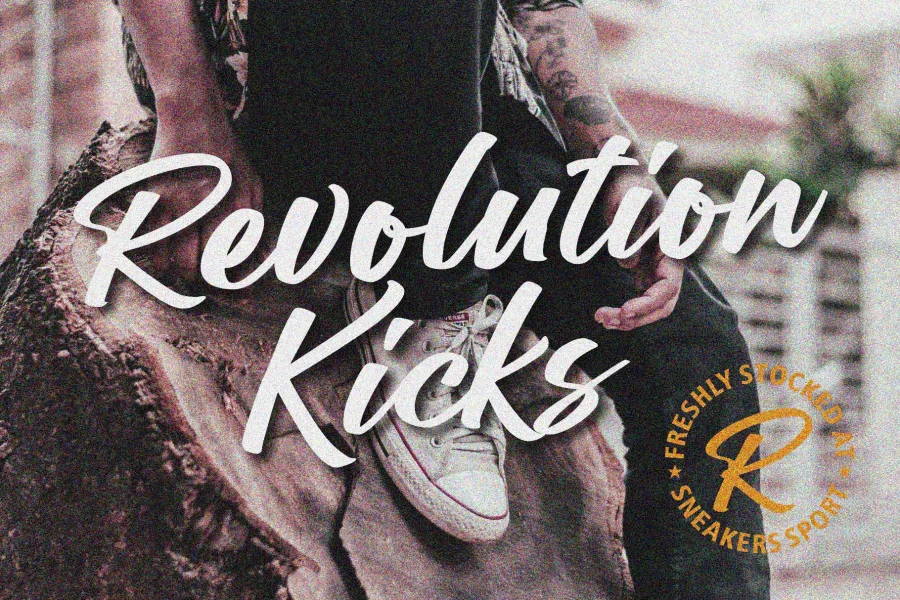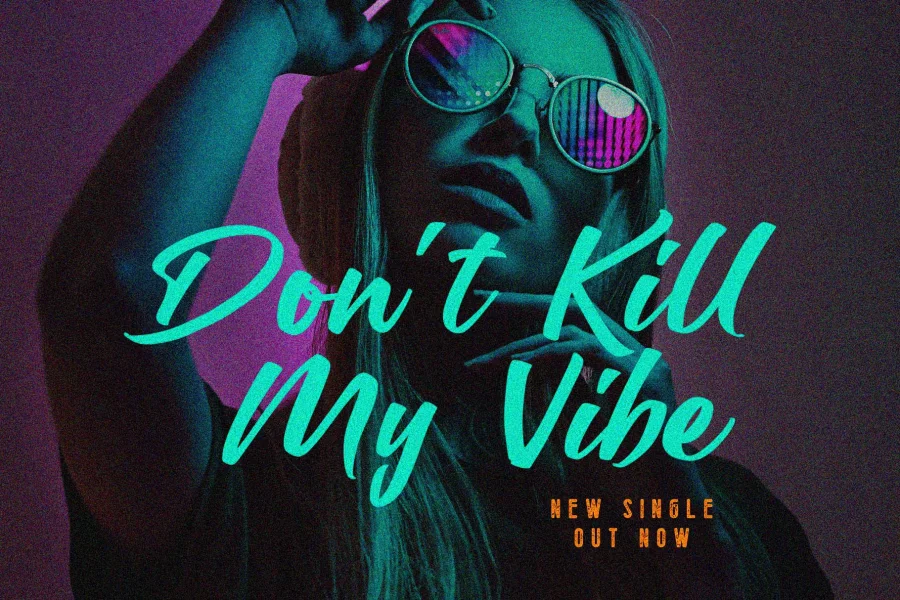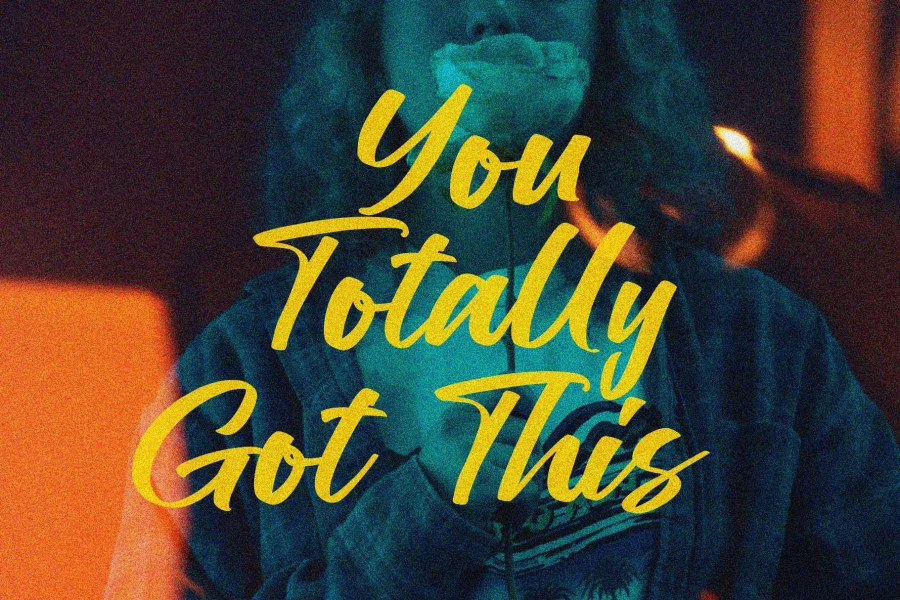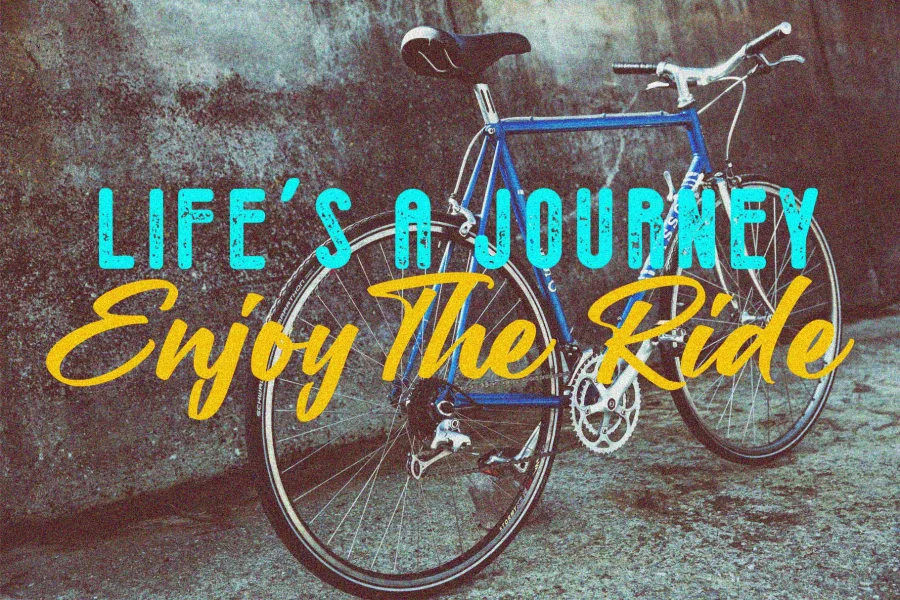
Introducing Ballerick Script Font
This font is perfect for modern projects, headings, blogs, logos, brandings, tagline, invitations and more!
Features:
• Standard Ligatures
• Numerals and Punctuation